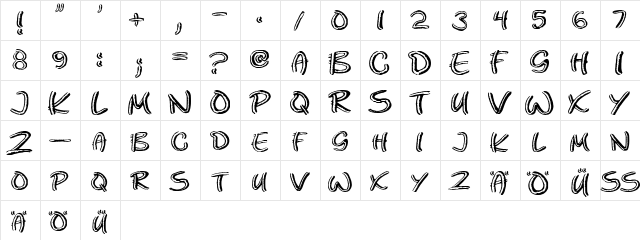
Paco Paco
Design Context for Paco Typeface
Paco is a composed and adaptable typeface that performs quietly and consistently across a wide range of design contexts.